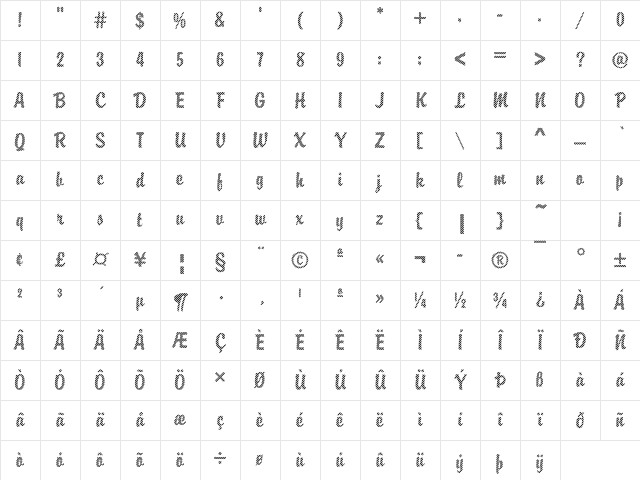
Complete Brody04 Becker Regular glyph index. Displaying only characters natively supported by Brody04 Becker Regular font.
Brody04 Becker is a composed and adaptable typeface that performs quietly and consistently across a wide range of design contexts.